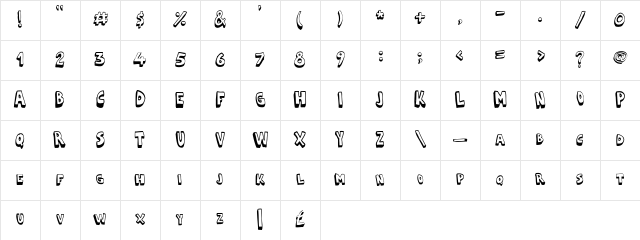
Cartoonia_3D Regular Free Font
Cartoonia_3D Regular
Foundry: Igor Pancaldi
Designer: Igor Pancaldi
Design Context for Cartoonia_3D
Cartoonia_3D has an approachable, lighthearted character - its loose, expressive forms are well-suited to children's content, casual branding, and fun-first design.
Font Pairing: Pairs well with a rounded or humanist sans for body copy, maintaining the friendly tone without relying on Cartoonia_3D to carry extended reading.
Pro Tip: Use Cartoonia_3D at larger display sizes where its expressive character can land. Pair with a clean, simple sans for body copy to maintain readability.